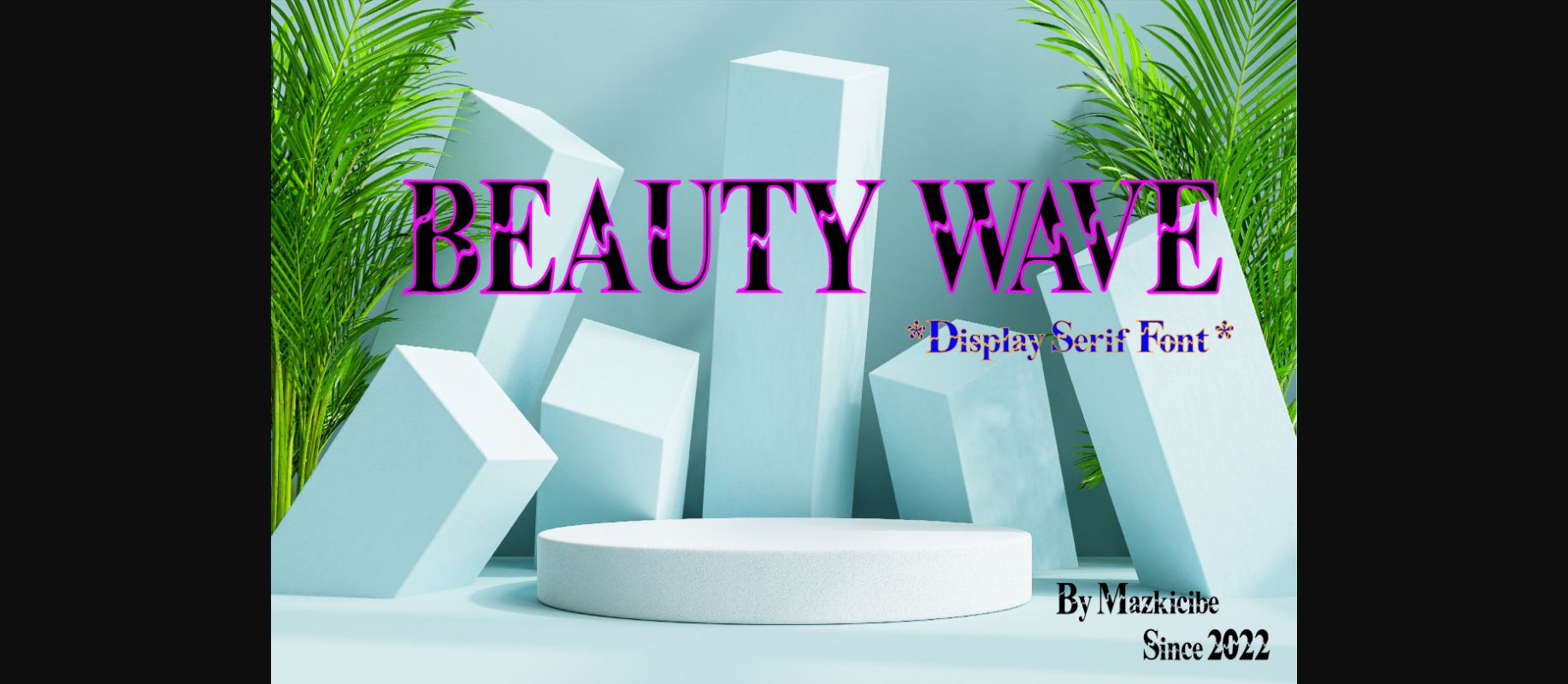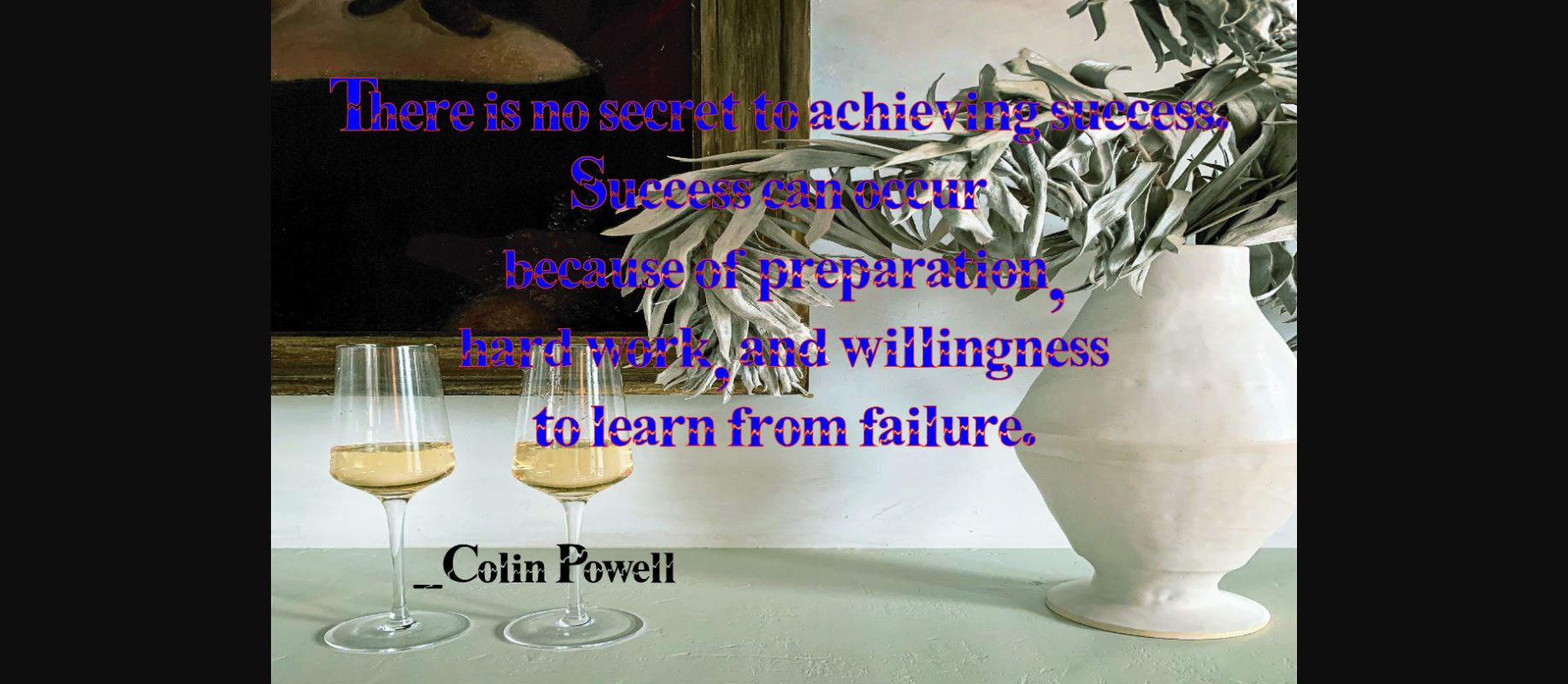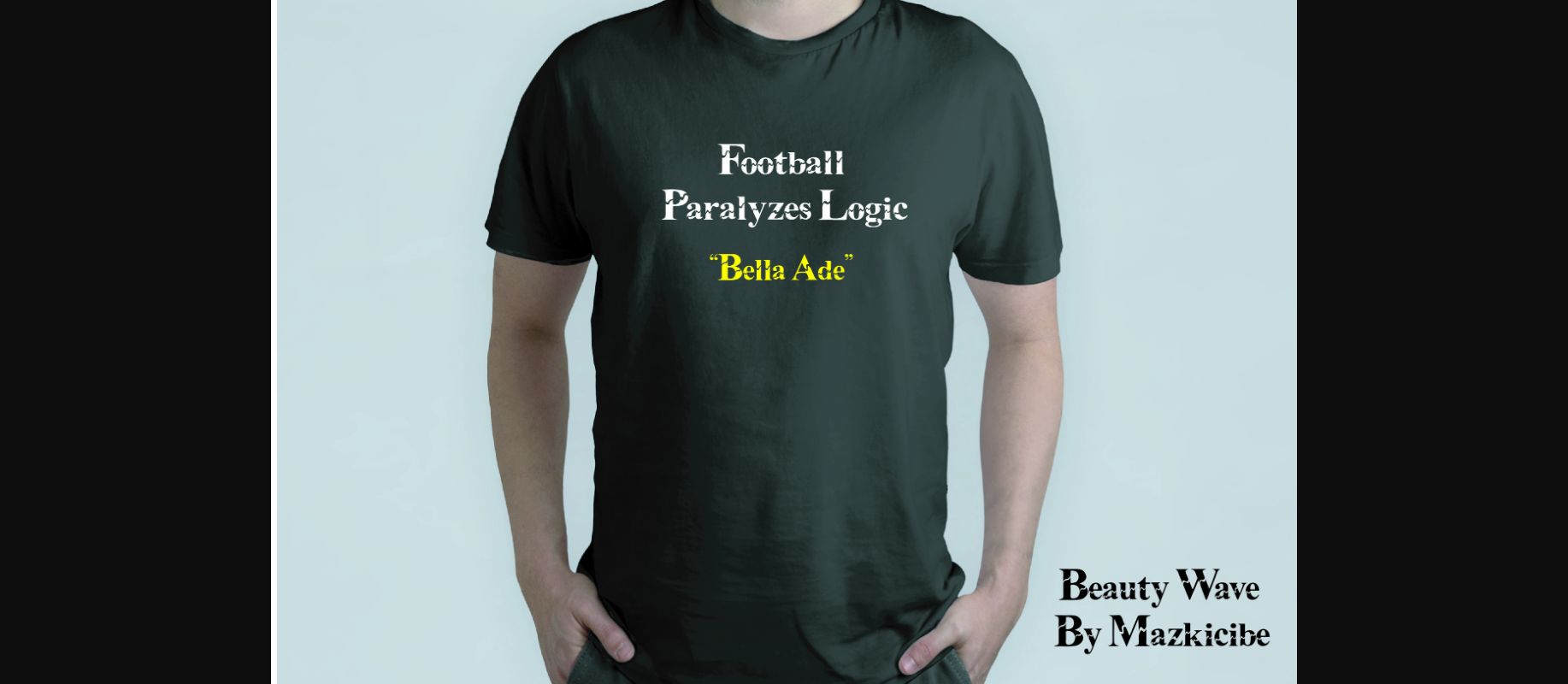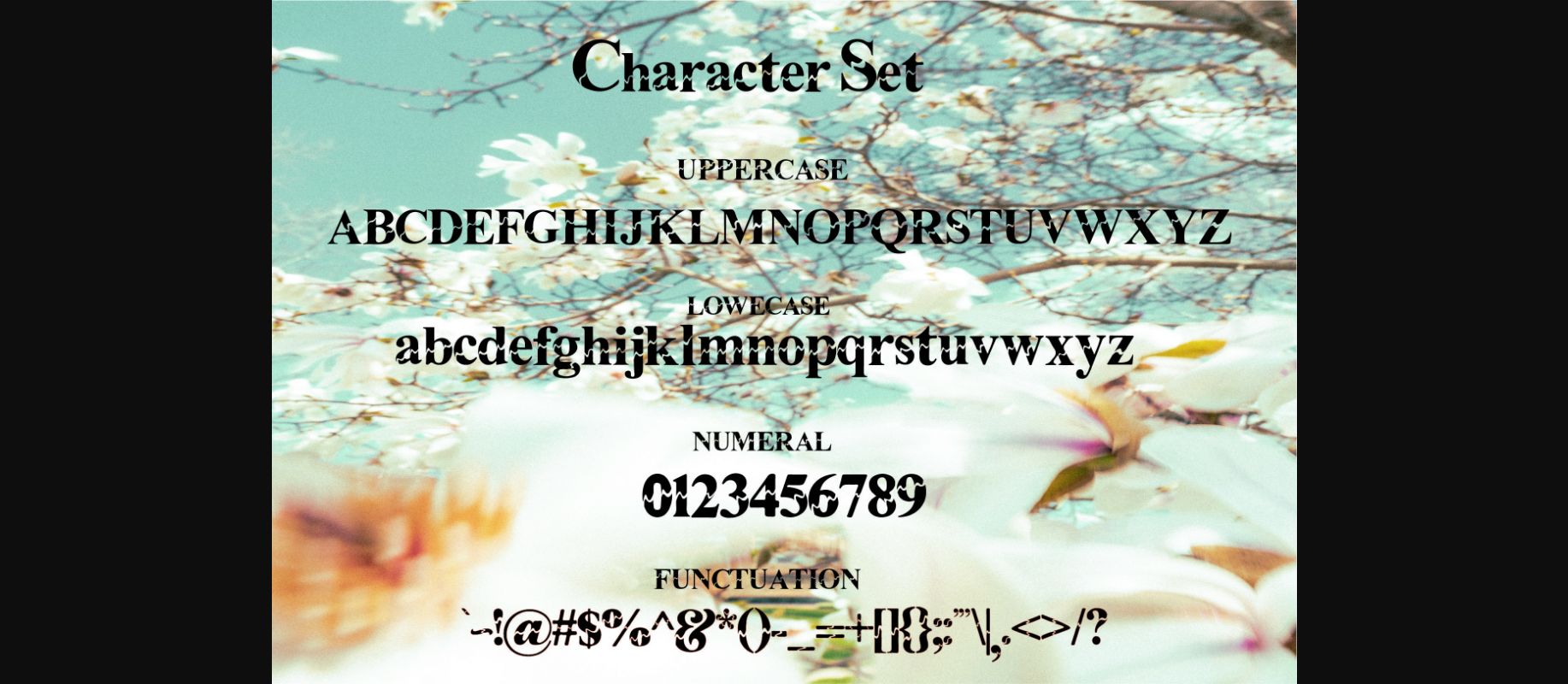
Beauty Wave Font
Beauty Wave: Modern & Decorative Serif Font to make every word more eye-catching. Great for social media posts, branding, merchandise, posters, comics, display, etc.
Beauty Wave is a serif font decorated with a cut or indentation resembling a flag-waving – it signifies freedom or independence.